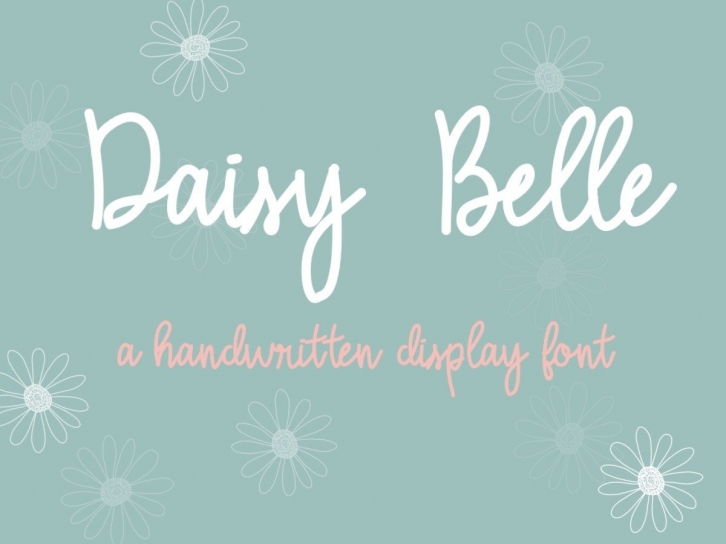
Daisy Belle is a lovely and timeless handwritten font. It is the best choice for creating eye catching logos, branding and quotes. Every letter has a unique and beautiful touch, which will make your design come alive!